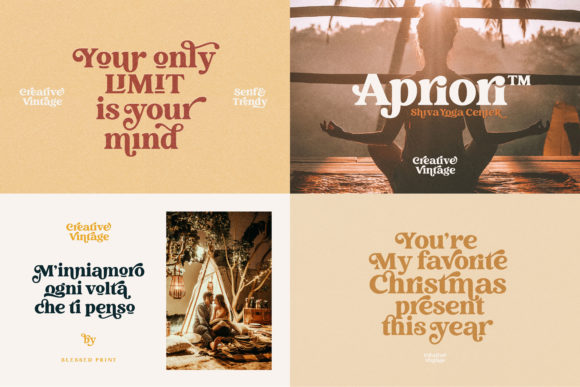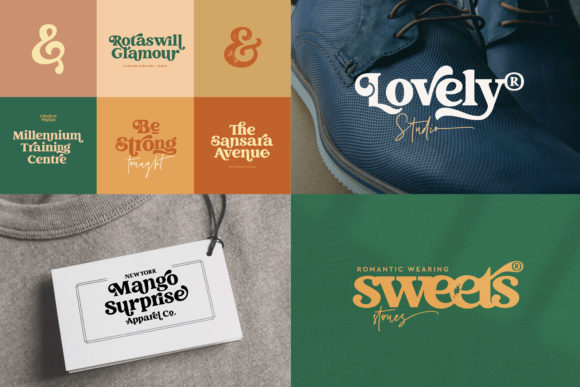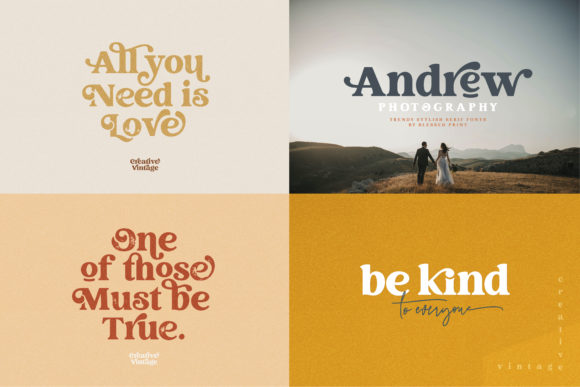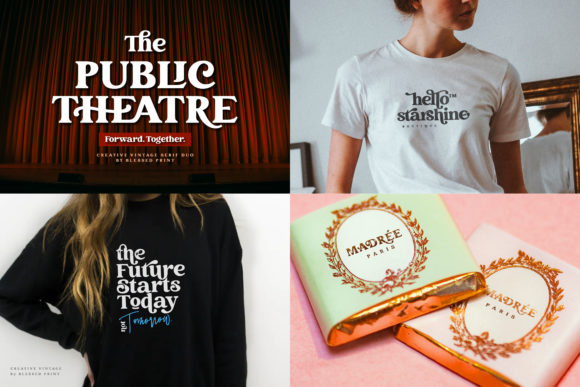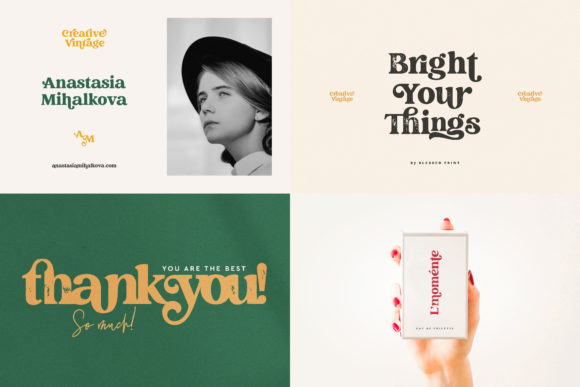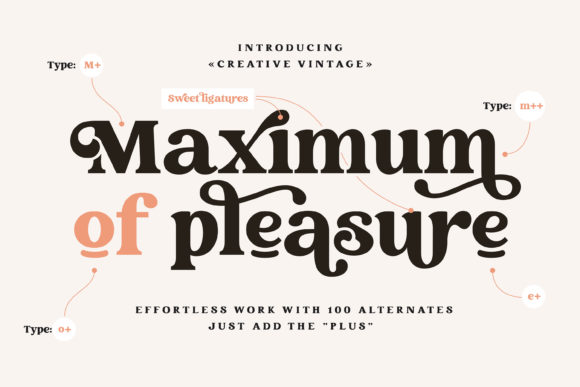
Unlocking Timeless Charm with Creative Vintage Font
Have you ever stumbled upon an old photograph or an antique book, and been captivated by the elegance of the typography? That’s exactly the kind of magic that the Creative Vintage Font can bring to your designs. This incredibly unique duo font is a masterful blend of bold and versatile styles, perfect for adding a touch of vintage charm to your work.
Whether you’re a seasoned designer or just starting out, the Creative Vintage Font is a valuable addition to your toolkit. Its adaptability makes it perfect for a wide range of projects, from elegant invitations to quirky advertisements. With its timeless charm, you’ll be able to create designs that feel both nostalgic and modern at the same time.
Creative Vintage Font Key Features
- Unique Characteristics: Distressed texture, subtle wear, and tear effects, and a nostalgic feel, making it perfect for vintage-themed designs.
Designer Review: Creative Vintage Font
Overall, I was quite impressed with the “Creative Vintage Font”. It has a unique, retro feel that’s perfect for vintage-themed designs or projects that require a touch of nostalgia.
- The font’s intricate details and ornate flourishes add a lot of character to any design.
- The font is highly customizable, allowing users to adjust the size, color, and spacing to suit their needs.
- The font’s vintage feel is well-executed and consistent throughout, making it easy to use and predict.
- The font can be a bit too ornate for some designs, making it difficult to read at small sizes.
- The font’s complexity can make it challenging to pair with other fonts or design elements.
- The font’s vintage feel may not be suitable for modern or minimalist designs.
Overall, I would recommend the “Creative Vintage Font” to designers who are looking for a unique and eye-catching font for their vintage-themed projects. However, it may not be the best choice for more modern or simple designs.
The Creative Vintage Font is perfect for:
- Creating a distressed or worn look for posters, flyers, and brochures.
- Adding a vintage touch to social media graphics and advertisements.
- Designing invitations and event materials with a classic, timeless feel.
Great Vibes is a beautiful, handwritten script font that evokes a sense of elegance and sophistication. It’s perfect for use in invitations, menus, and other materials where a touch of luxury is desired. Great Vibes is similar to Creative Vintage Font in its whimsical feel, but it has a more refined and polished look.
Pacifico is a stylish, sans-serif font that exudes a relaxed, beachy vibe. It’s great for use in designs that need to convey a sense of calmness and serenity, such as travel brochures or wellness websites. While Pacifico has a similar laid-back feel to Creative Vintage Font, it’s more modern and clean-cut.
Carolyna Pro is a elegant, serif font that’s perfect for use in high-end designs, such as luxury brands or fine art publications. It has a classic, sophisticated look that’s similar to Creative Vintage Font, but with a more refined and sophisticated feel.
Alex Brush is a beautiful, handwritten script font that’s perfect for use in designs that need to convey a sense of creativity and playfulness. It’s great for use in materials like posters, flyers, and social media graphics. While Alex Brush has a similar whimsical feel to Creative Vintage Font, it’s more expressive and artistic.
What is the recommended font size for using the Creative Vintage Font?
The recommended font size for the Creative Vintage Font is between 12-24 points, depending on the design context. For body text, we recommend using 14-16 points, while headlines can be set at 18-24 points for optimal readability and visual impact.